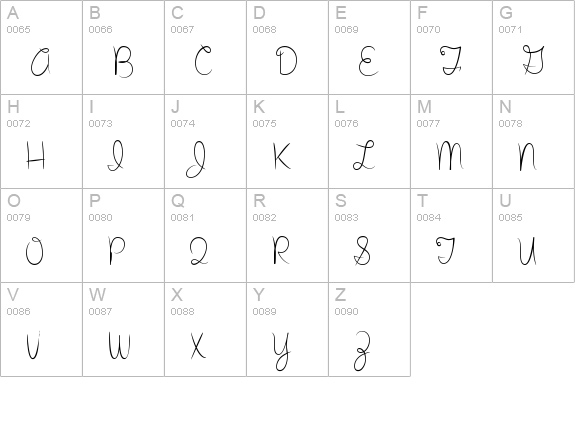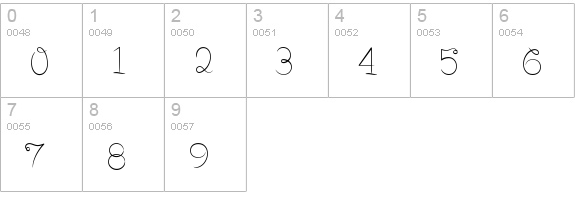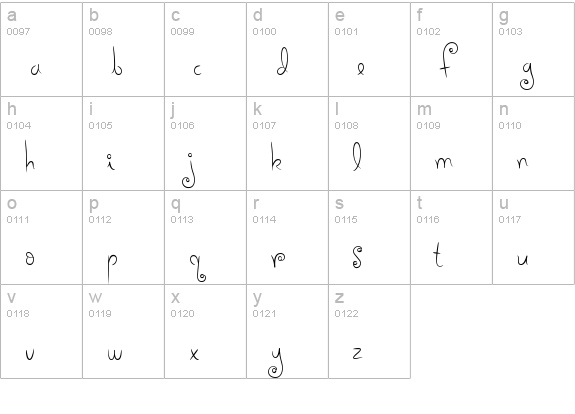
Holiday Springs BTN Quill Lt Font Details
Holiday Springs BTN Quill Lt is a charming and elegant font that exudes a sense of sophistication and grace. With its delicate letterforms and flowing strokes, this font is perfect for adding a touch of luxury to your designs. Whether you're creating wedding invitations, elegant branding materials, or stylish packaging, Holiday Springs BTN Quill Lt is sure to make a statement. The best part? This stunning font is available for free download at FontsMarket.com. Don't miss out on the opportunity to add Holiday Springs BTN Quill Lt to your font collection and elevate your designs with its timeless beauty. Download it today and unleash your creativity!